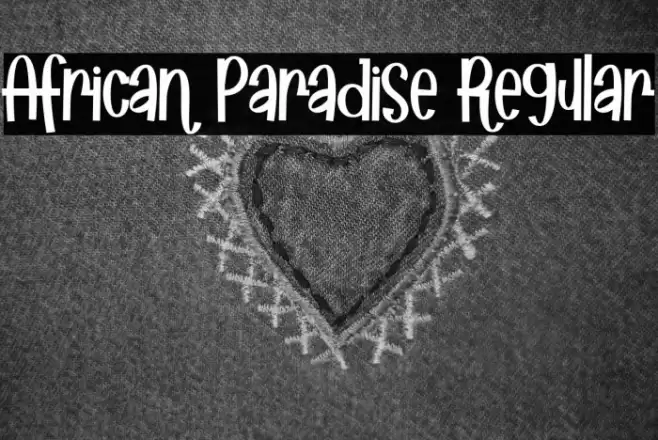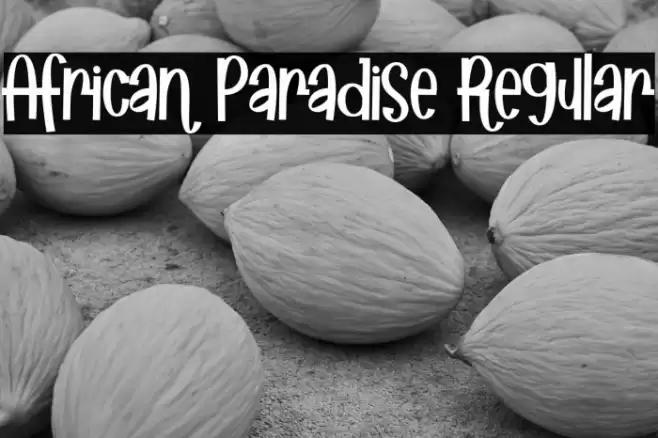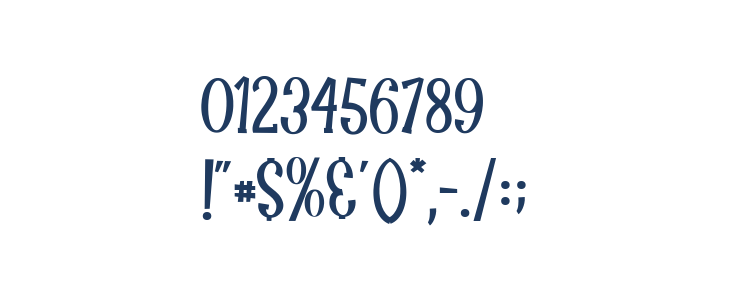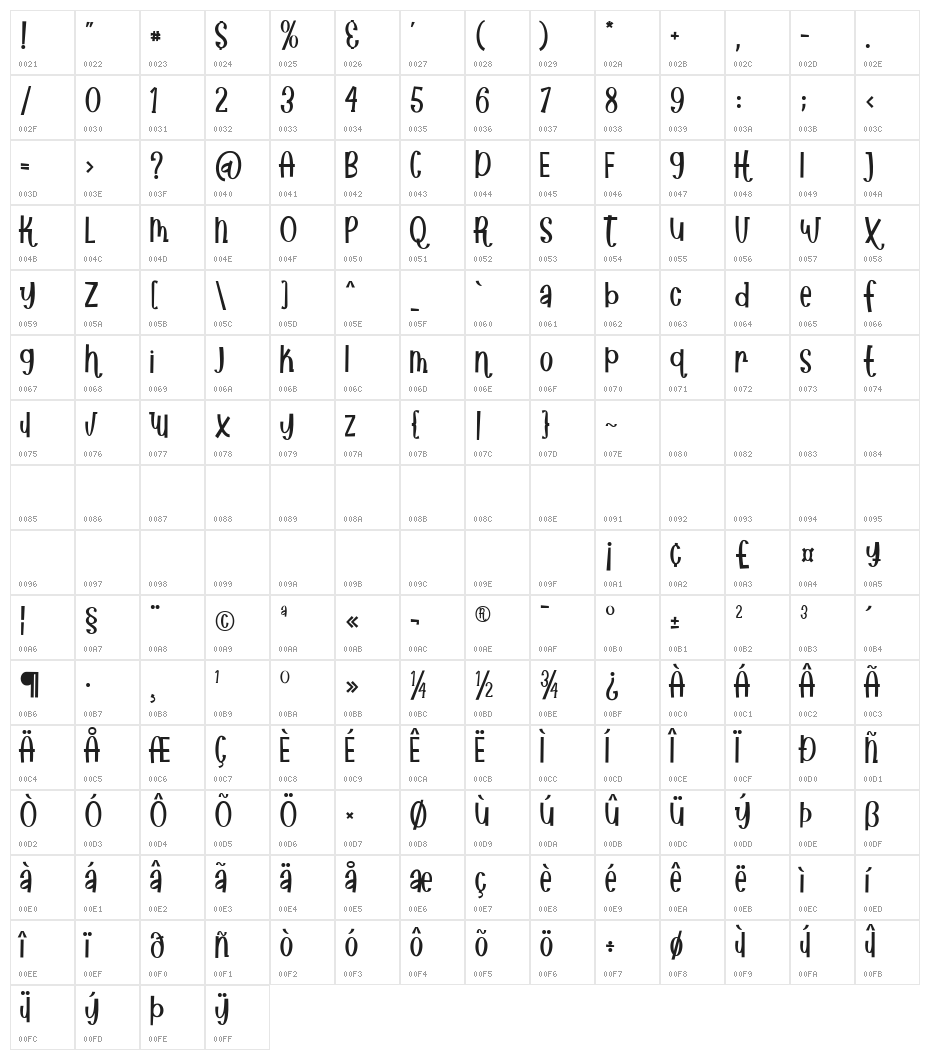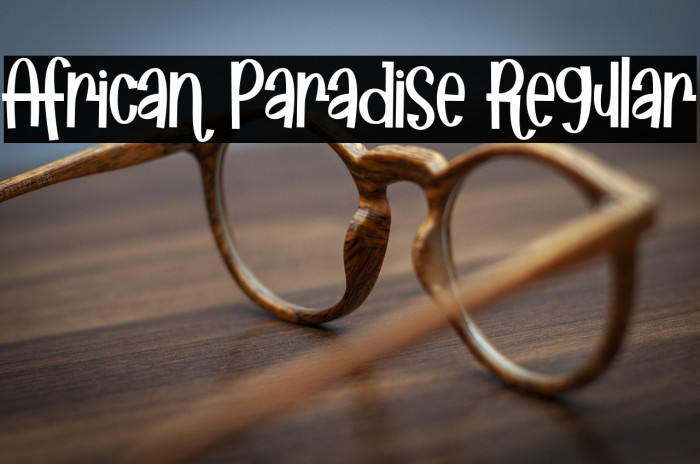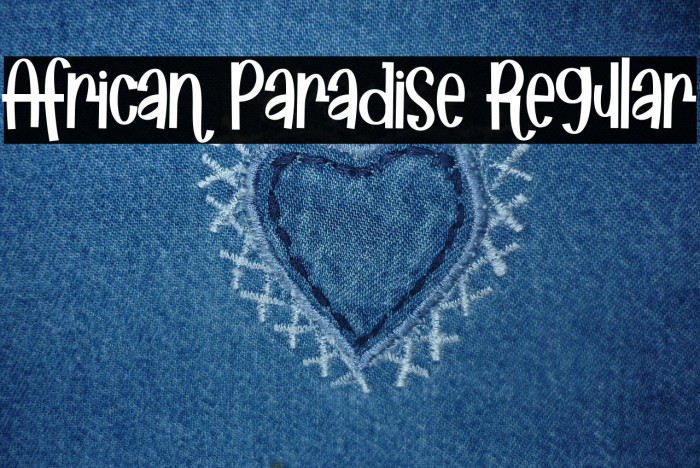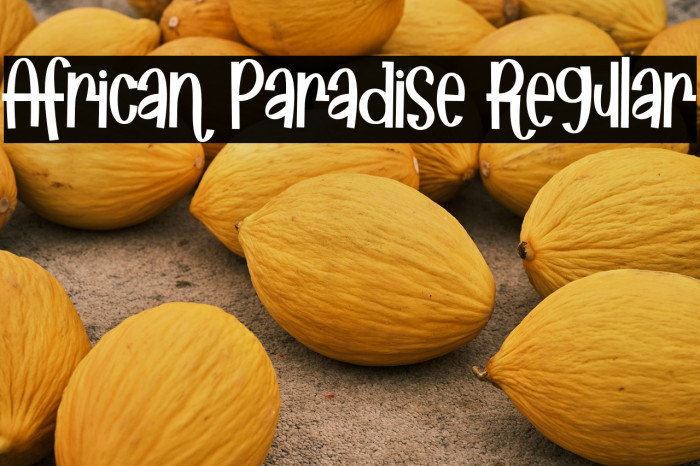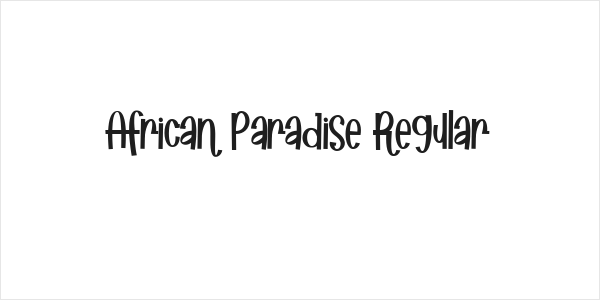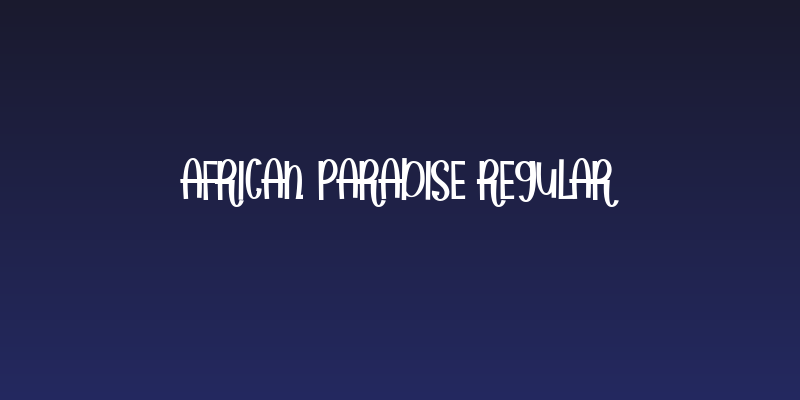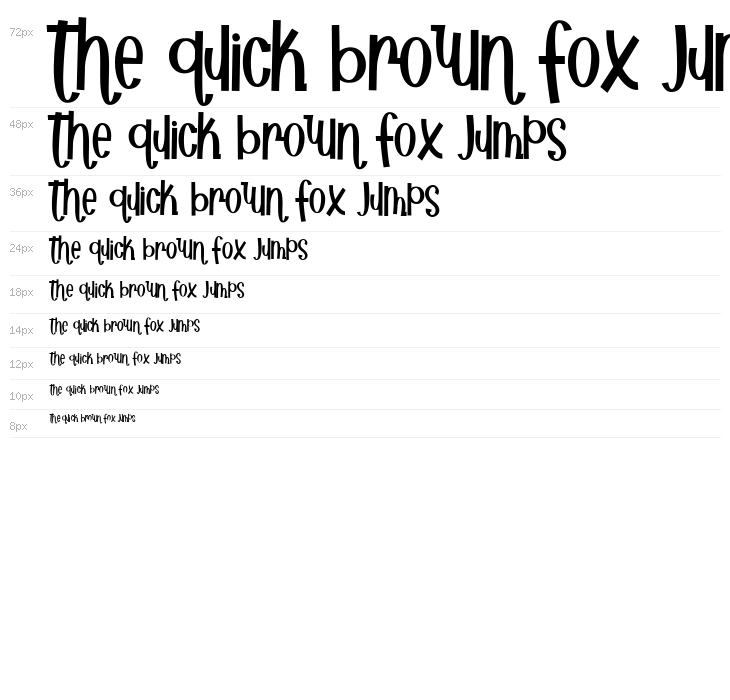
African Paradise Regular Font
African Paradise Regular Description
This font features a playful and whimsical style with a unique blend of curves and angles. The uppercase letters are bold and tall, with a slight slant that adds a dynamic feel. The lowercase letters maintain a consistent style, with rounded edges and a slightly condensed form. Numbers are clear and easy to read, matching the overall playful aesthetic. Special characters are creatively designed, maintaining the font's distinctive style. This font is perfect for projects that require a fun and lively touch, such as children's books, posters, or branding for creative businesses.
A playful and whimsical font with bold, tall letters and a dynamic slant from Regular fonts.
- Proposed Projects: Ideal for children's books, playful posters, creative branding, and event invitations.
- Overall Style: Playful